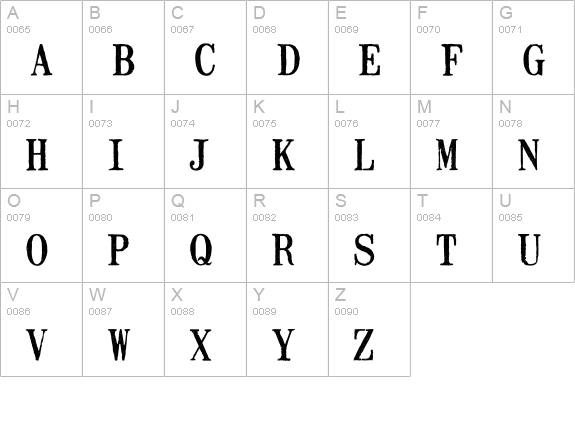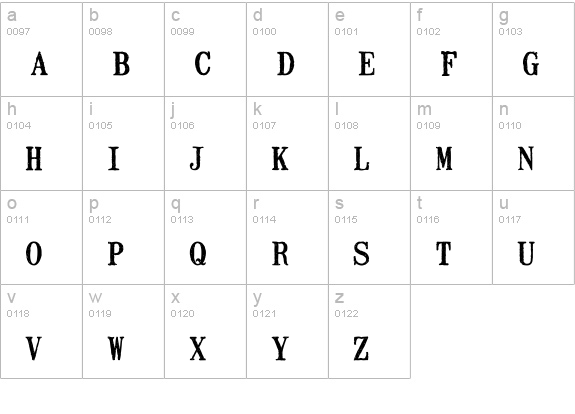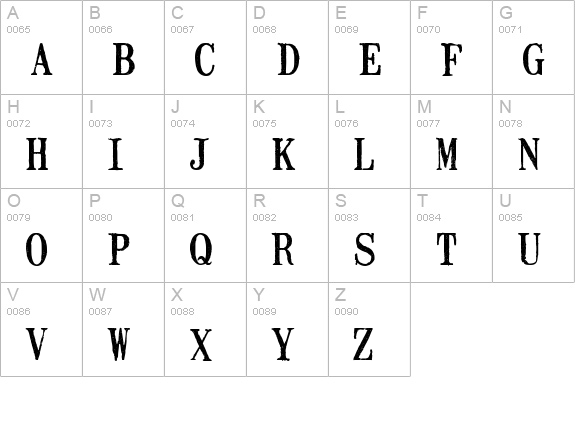
Mailart Rubberstamp Font Details
Introducing Mailart Rubberstamp font, a truly unique and creative typeface that brings an authentic hand-stamped look to your designs. This font is perfect for adding that extra touch of character and charm to your projects. With its irregular and imperfect letterforms, Mailart Rubberstamp font captures the essence of hand-stamped designs, reminiscent of vintage postcards and nostalgic mail art. Each letter is carefully crafted to resemble the individual impressions of a rubber stamp, giving your text a distinctively artistic and handmade feel. Whether you're working on invitations, posters, flyers, or any other creative project, Mailart Rubberstamp font is sure to make a lasting impression. Its versatility allows you to use it for both headings and body text, making it an ideal choice for various design purposes. And the best part? Mailart Rubberstamp font is absolutely free! You can easily download it from FontsMarket.com, a trusted online platform for quality fonts. Now you can enjoy the creative freedom this font offers without any cost, making it a valuable addition to your design resources. So, why wait? Embrace the artistic charm of hand-stamped designs with Mailart Rubberstamp font and elevate your projects to a whole new level. Download it for free at FontsMarket.com and let your creativity shine.